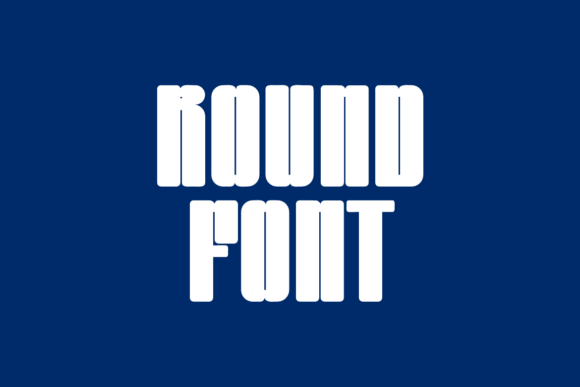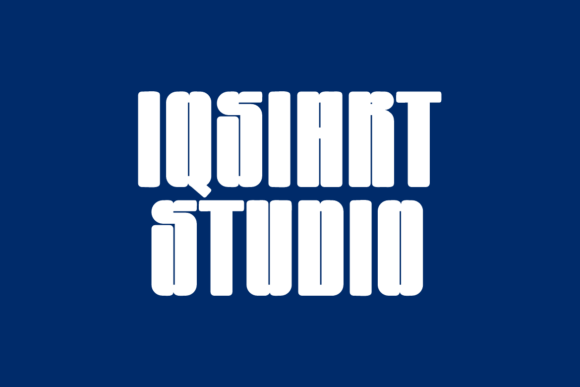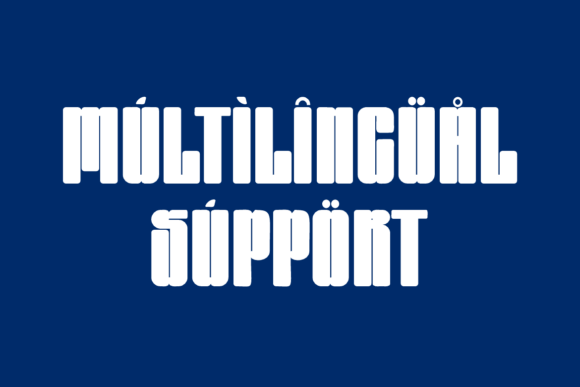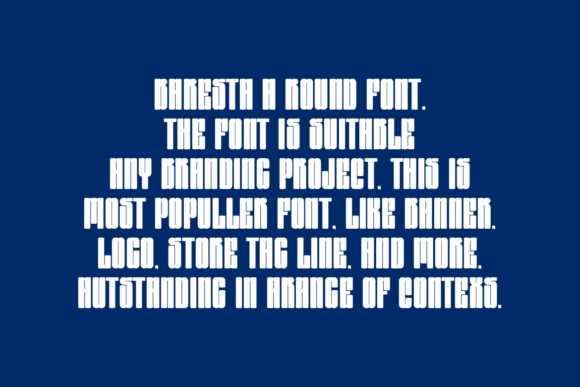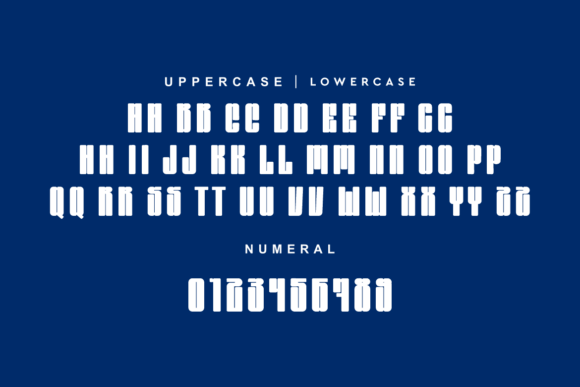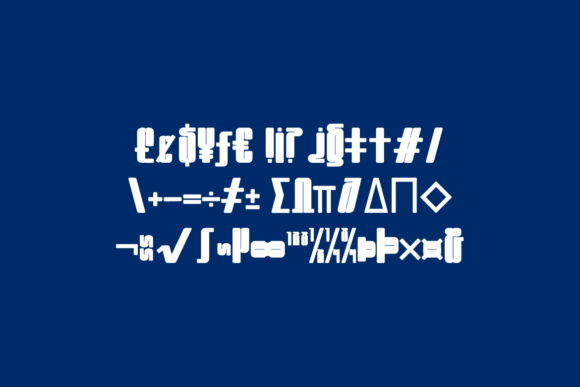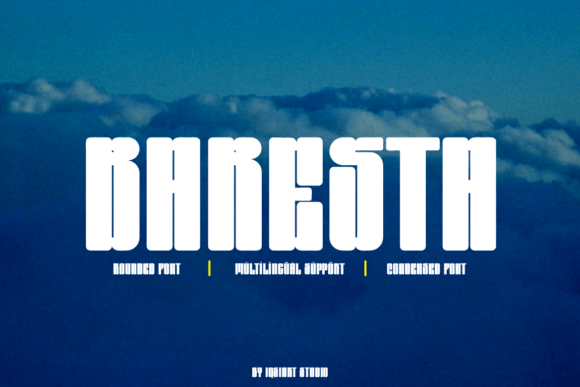
Introducing Baresta Font: The Bold and Assertive Sans Serif for Your Creative Projects
In the world of typography, a font can make or break a design. It’s the foundation upon which your creative vision is built, and choosing the right one can be a daunting task. If you’re on the hunt for a typeface that exudes confidence and boldness, look no further than Baresta Font. This sans serif font is designed to make a statement, and its versatility makes it an incredible asset to any designer’s or crafter’s font library.
The Power of Bold Typography
Baresta Font is not just any ordinary font. Its bold and assertive nature makes it perfect for a wide range of applications, from eye-catching headlines to striking logos. The font’s sans serif design gives it a modern and clean look that’s sure to grab attention. Whether you’re working on a branding project, a website, or a print design, Baresta Font is guaranteed to elevate your creation and leave a lasting impression.
Key Features of Baresta Font
- Bold and Assertive: Baresta Font is designed to make a statement. Its bold strokes and assertive style ensure that your text stands out from the crowd.
- Versatile: Whether you’re working on a digital project or a print design, Baresta Font adapts seamlessly to any medium.
- Modern and Clean: The sans serif design gives Baresta Font a modern and clean look that’s perfect for contemporary designs.
- Easy to Read: Despite its bold nature, Baresta Font remains easy to read, making it perfect for body text as well as headlines.
Use Cases for Baresta Font
So, what can you use Baresta Font for? The possibilities are endless! Here are a few ideas to get you started:
- Branding and Logos: Create a bold and memorable brand identity with Baresta Font.
- Headlines and Titles: Use Baresta Font to create eye-catching headlines and titles that grab attention.
- Web Design: Add a modern touch to your website with Baresta Font, perfect for headings, titles, and calls-to-action.
- Print Design: From brochures to posters, Baresta Font is perfect for any print design project that requires a bold and assertive typeface.
Why Choose Baresta Font?
With so many fonts available, why choose Baresta Font? Here are just a few reasons:
- Unique and Distinctive: Baresta Font stands out from the crowd with its bold and assertive style.
- High-Quality Design: Crafted with precision and attention to detail, Baresta Font is a high-quality typeface that’s sure to impress.